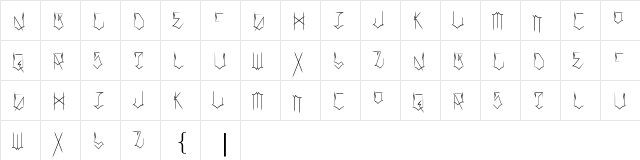
Locals Only Regular Font Preview
Locals Only Regular
Design Context for Locals Only Typeface
Locals Only is a composed and adaptable typeface that performs quietly and consistently across a wide range of design contexts.